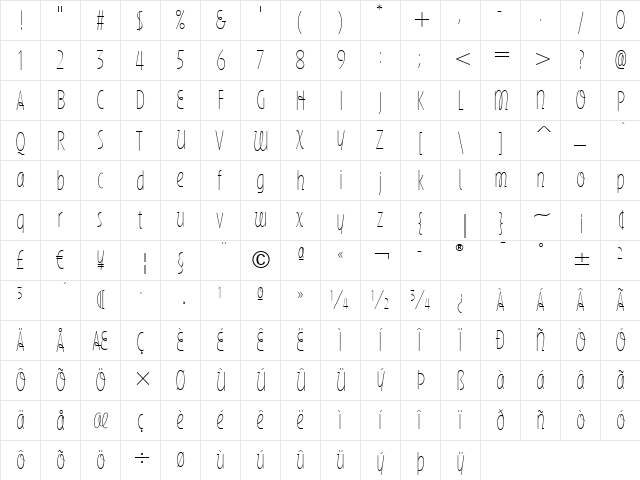
Silvermoon ITC Thin
Design Context for Silvermoon ITC Typeface
Silvermoon ITC is a composed and adaptable typeface that performs quietly and consistently across a wide range of design contexts. The delicate stroke weight brings airiness and refinement to layouts.